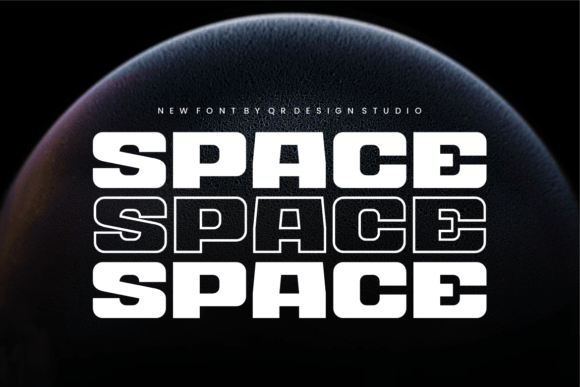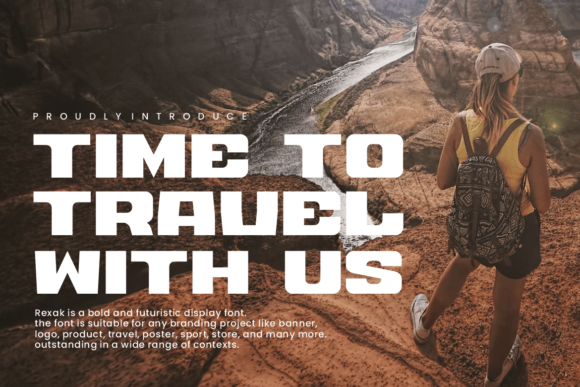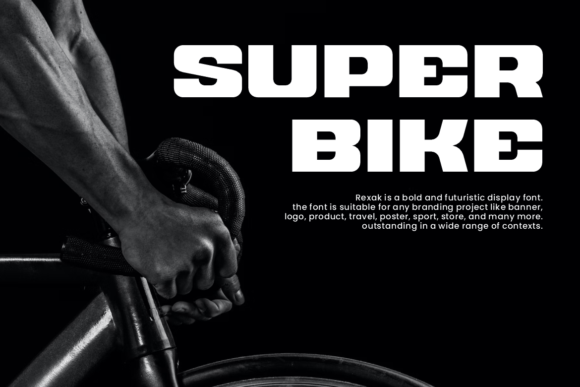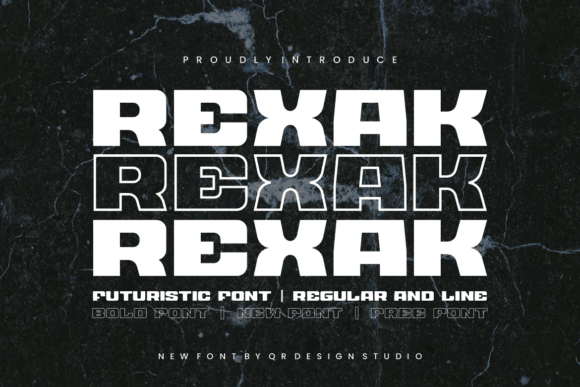
Introduction to Rexak Font
Rexak is a bold, all caps display font featuring the perfect amount of trendiness.
Whether you’re using it for crafting, digital designing, presentations or greeting cards making, it’s perfect .
Key Features of Rexak Font
Why Choose Rexak Font?
Rexak Font offers exceptional quality and versatility, making it a valuable addition to your design toolkit. Whether you’re creating for personal projects or commercial use, Rexak Font delivers professional results.